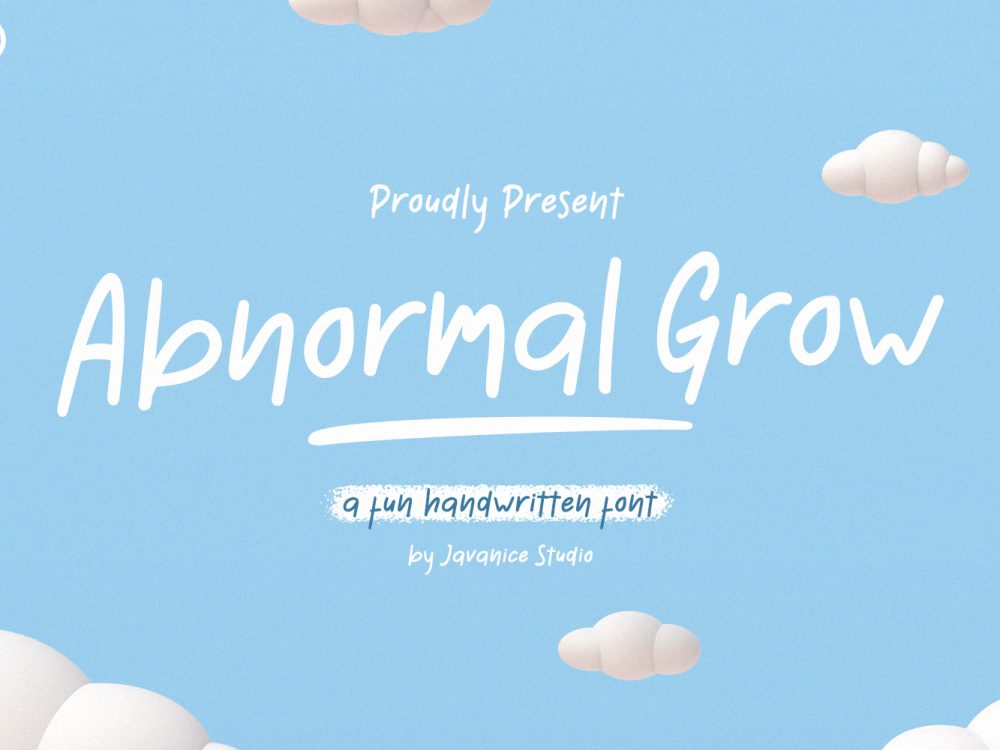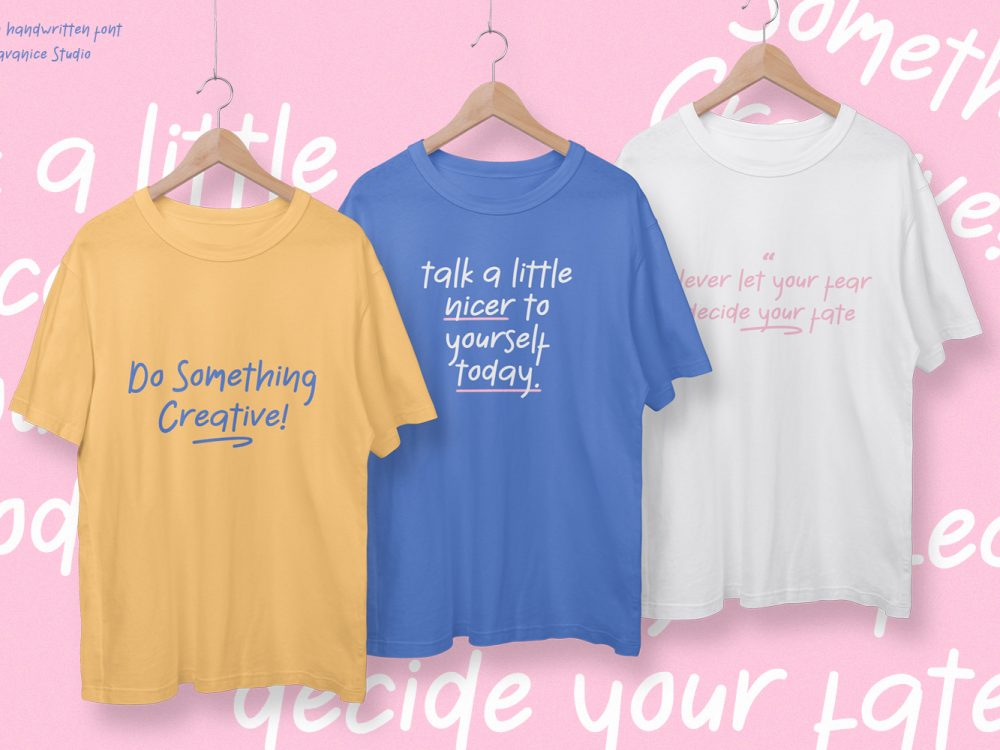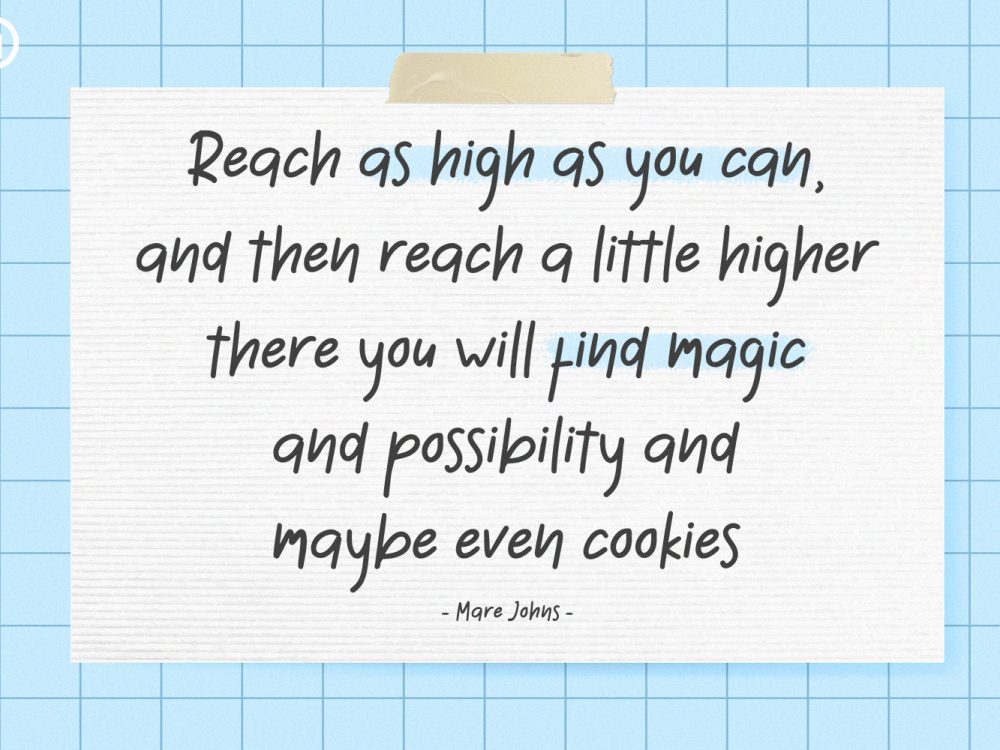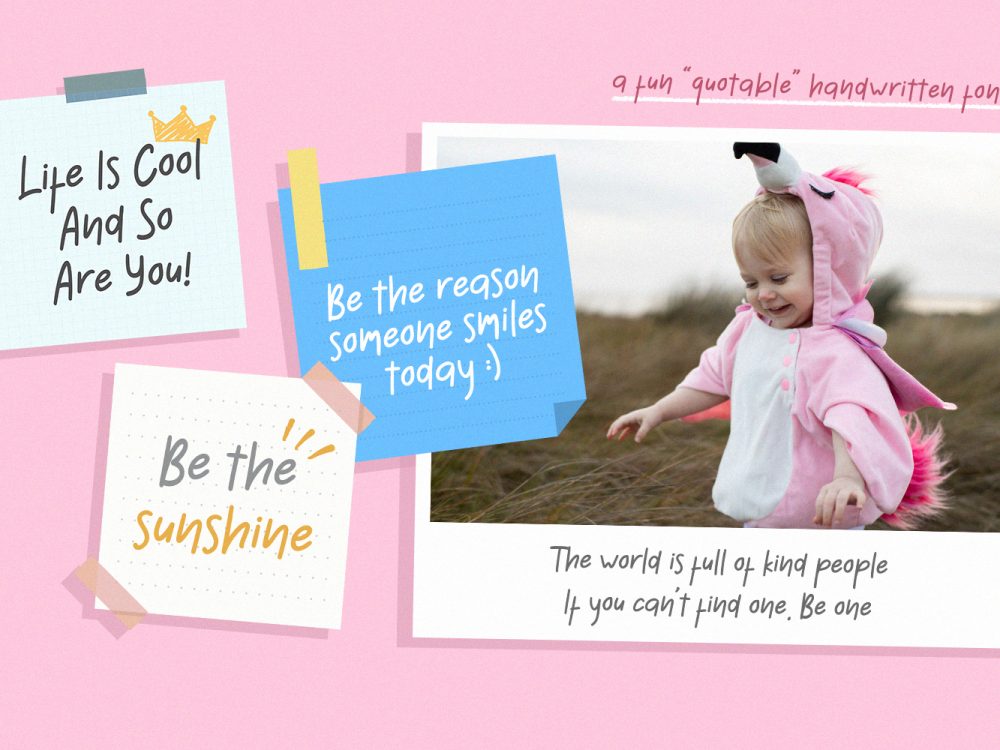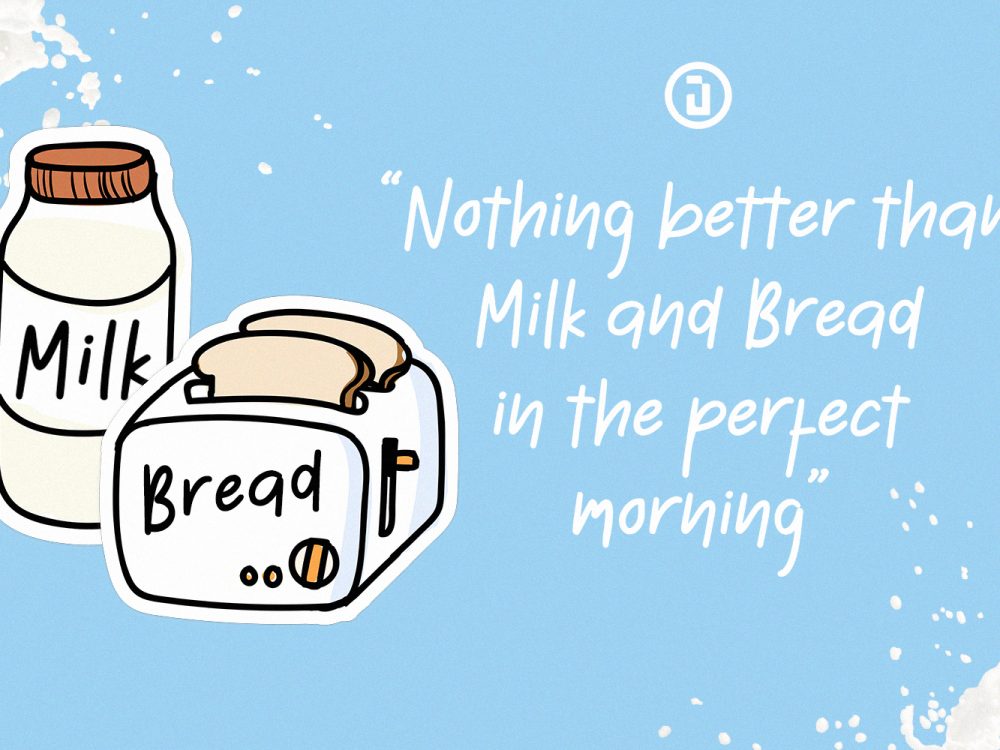
Abnormal Grow Free Font is a fun handwritten font perfect for branding projects, apparel, labels, magazines, books, greeting/wedding cards, packaging, fashion, make-up, stationery, and any type of advertising purpose. If you like it don’t forget to check out the full version.